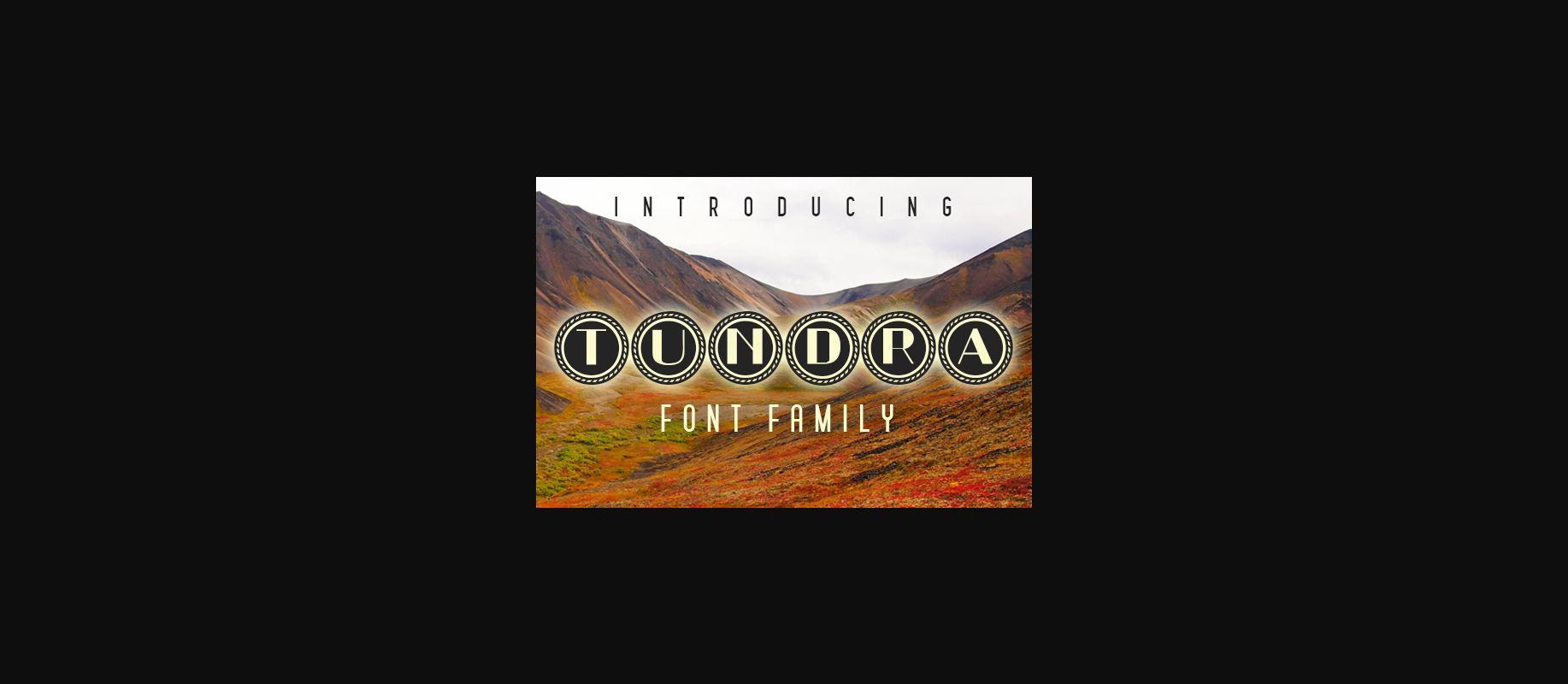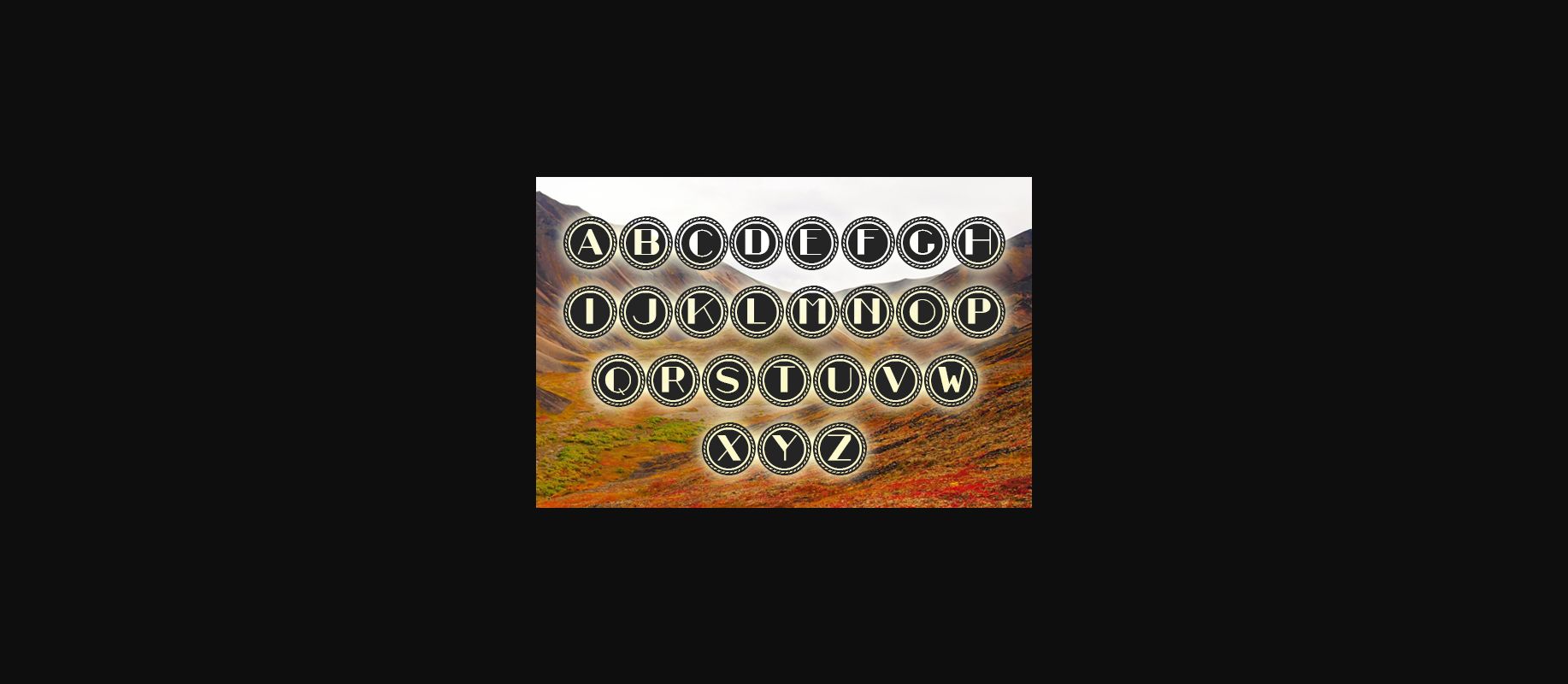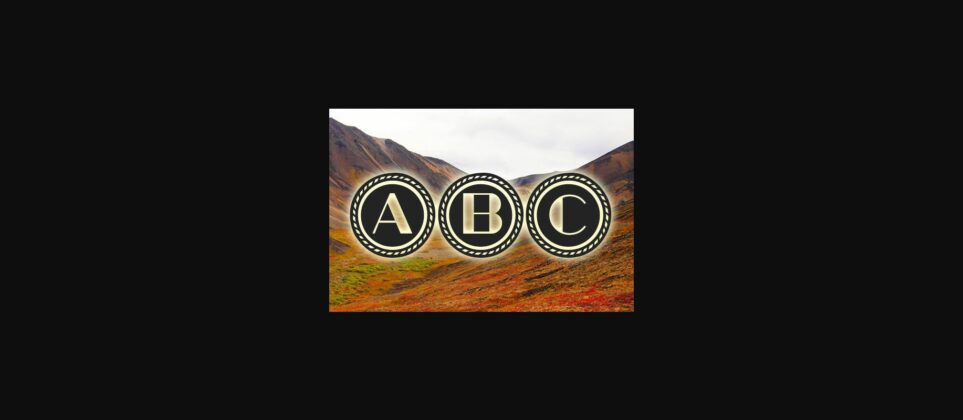
About Tundra Font
Tundra is an incredibly unique decorative font. Masterfully designed to become a true favorite, this font has the potential to bring each of your creative ideas to the highest level!